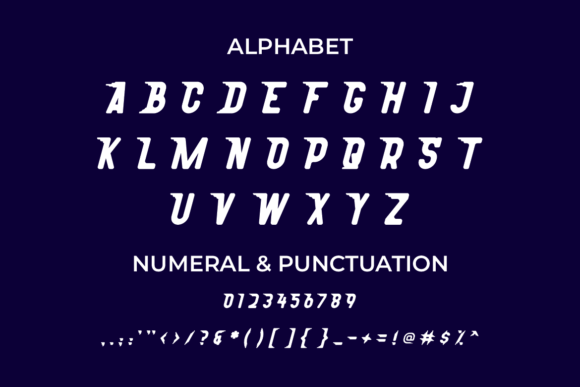
The Ultimate Display Font: Apik
I’ll never forget the time I was working on a project for a client who needed a modern and edgy font to match their brand’s personality. I spent hours scouring through font libraries, but nothing seemed quite right. That was until I stumbled upon Apik, a cool and modern display font that instantly caught my eye. In this article, I’ll share my experience with Apik, its features, and how to make the most of it in your designs.
An Honest Review of Apik
So, what makes Apik special? Here are some things I love about this font:
- ✨ Modern and edgy look: Apik has a sleek and contemporary design that instantly elevates any creation.
- ✅ Highly versatile: Whether you’re working on a branding project, a poster, or a social media graphic, Apik adapts seamlessly to any topic or style.
- 🌈 Excellent for display text: Apik shines when used for headlines, titles, or short phrases, making it perfect for grabbing attention.
Of course, no font is perfect, and Apik has a few minor quirks:
- 🤔 Limited legibility at small sizes: As with many display fonts, Apik can become difficult to read when scaled down to very small sizes.
- ⚠️ Some glyphs may require manual adjustment: Depending on the context, certain glyphs might need tweaking to ensure optimal spacing and alignment.
- Experiment with OpenType features, such as stylistic alternates, to add visual interest to your text.
- Explore OpenType features, such as glyphs and ligatures, to enhance your typography.
The Backstory of Apik
Apik was designed by a team of typographers who aimed to create a font that would be both modern and highly versatile. Inspired by the latest design trends and technological advancements, they crafted Apik to be a go-to font for creatives looking for a sleek, edgy look. While the actual design process remains a mystery, it’s clear that Apik was created with the intention of elevating any design project.
| Font Name | Apik Font |
| Author | maikofarazhatta |
| What type of projects is Apik best suited for? | Apik excels in projects that require a modern, edgy look, such as branding, posters, social media graphics, and headlines. |
| Can I use Apik for body text? | While Apik can be used for body text, it’s primarily designed for display text. For longer blocks of text, consider a more legible font. |